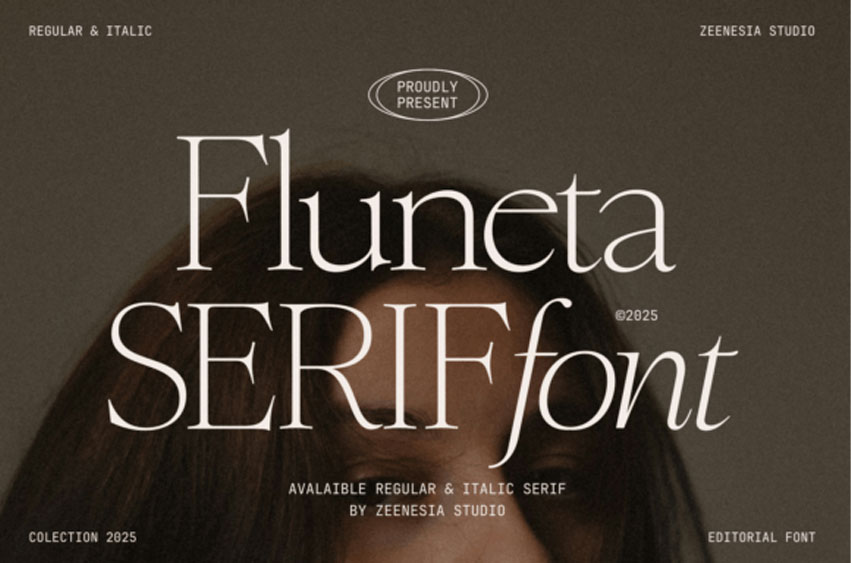
Fluneta Font
Fluneta Font is a refined serif typeface that blends classic elegance with a touch of modern charm. Available in Regular and Italic styles.
Fluneta was designed to bring sophistication and clarity to any layout, whether in print or digital.